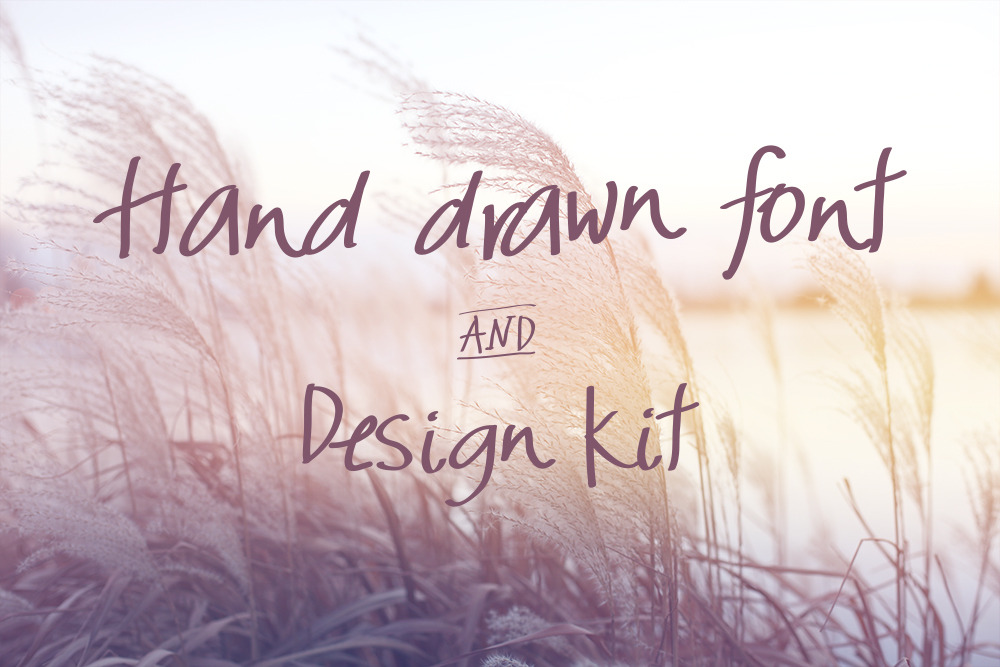
Hand drawn vector font
This is hand-made typeface designed to help you to decorate cards, photos, and web design elements.
Enjoy the creative process with this vector font :)